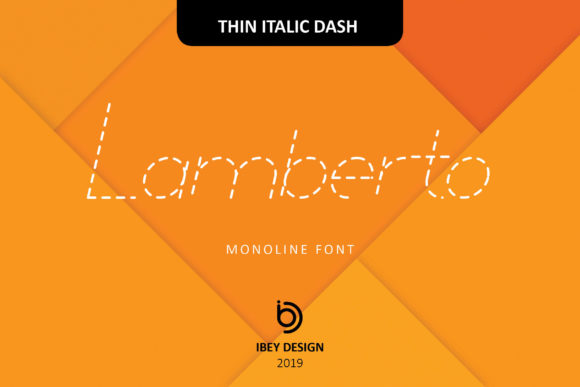
Unleash the Alluring Charm of Lamberto Thin Italic Dash: A Font That Captivates and Empowers
In the realm of typography, Lamberto Thin Italic Dash emerges as a captivating monoline display font, meticulously crafted by the visionary minds at ibeydesign. This extraordinary typeface embodies a unique blend of bold modernity and classic elegance, sure to leave an indelible mark on your creative endeavors.
With its captivating strokes and dynamic curves, Lamberto Thin Dash effortlessly commands attention, making it the perfect choice for captivating headlines, alluring logos, and impactful posters. Its contemporary flair adds a touch of sophistication to any project, elevating your designs to new heights of visual allure.
Step into a world of boundless creativity with Lamberto Thin Italic Dash. Its versatility knows no bounds, seamlessly adapting to a myriad of design aesthetics. Whether you're crafting a stunning website, designing eye-catching social media graphics, or creating unique branding materials, this font has the power to transform your vision into reality.
Experience the sheer joy of effortless readability with Lamberto Thin Dash. Its meticulously crafted letterforms ensure clarity and precision, enhancing the user experience. Whether your audience is navigating your website, engaging with your social media content, or reading your marketing materials, they'll appreciate the ease with which they can absorb your message.
With Lamberto Thin Italic Dash, you'll unlock a world of endless possibilities, allowing your creativity to flourish like never before. Embrace the power of this remarkable font and watch as your designs take on a life of their own, captivating audiences and leaving a lasting impression.